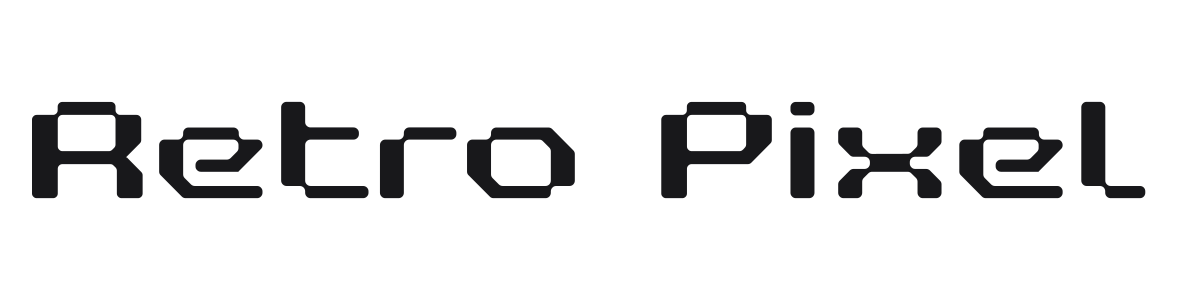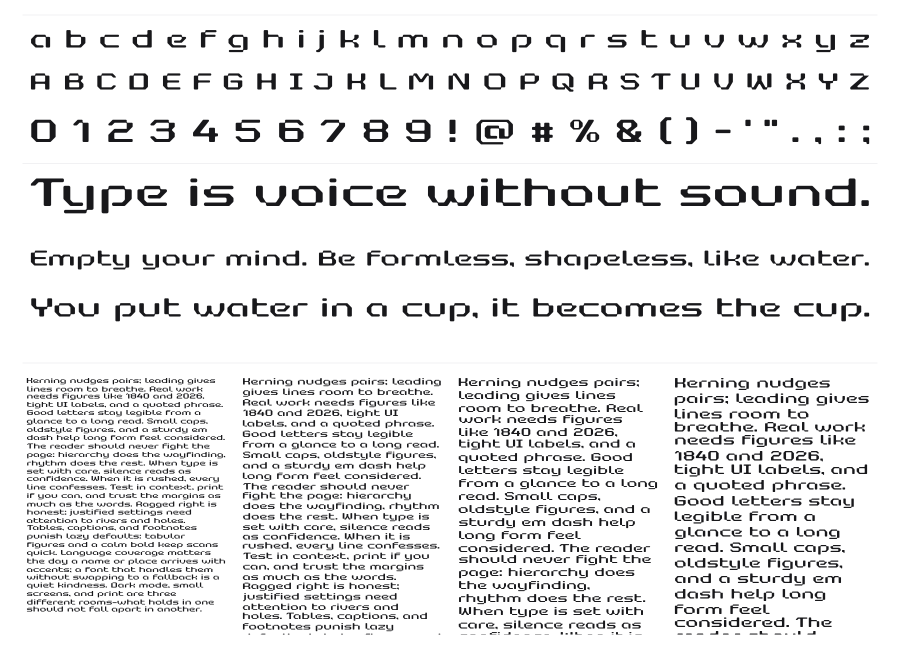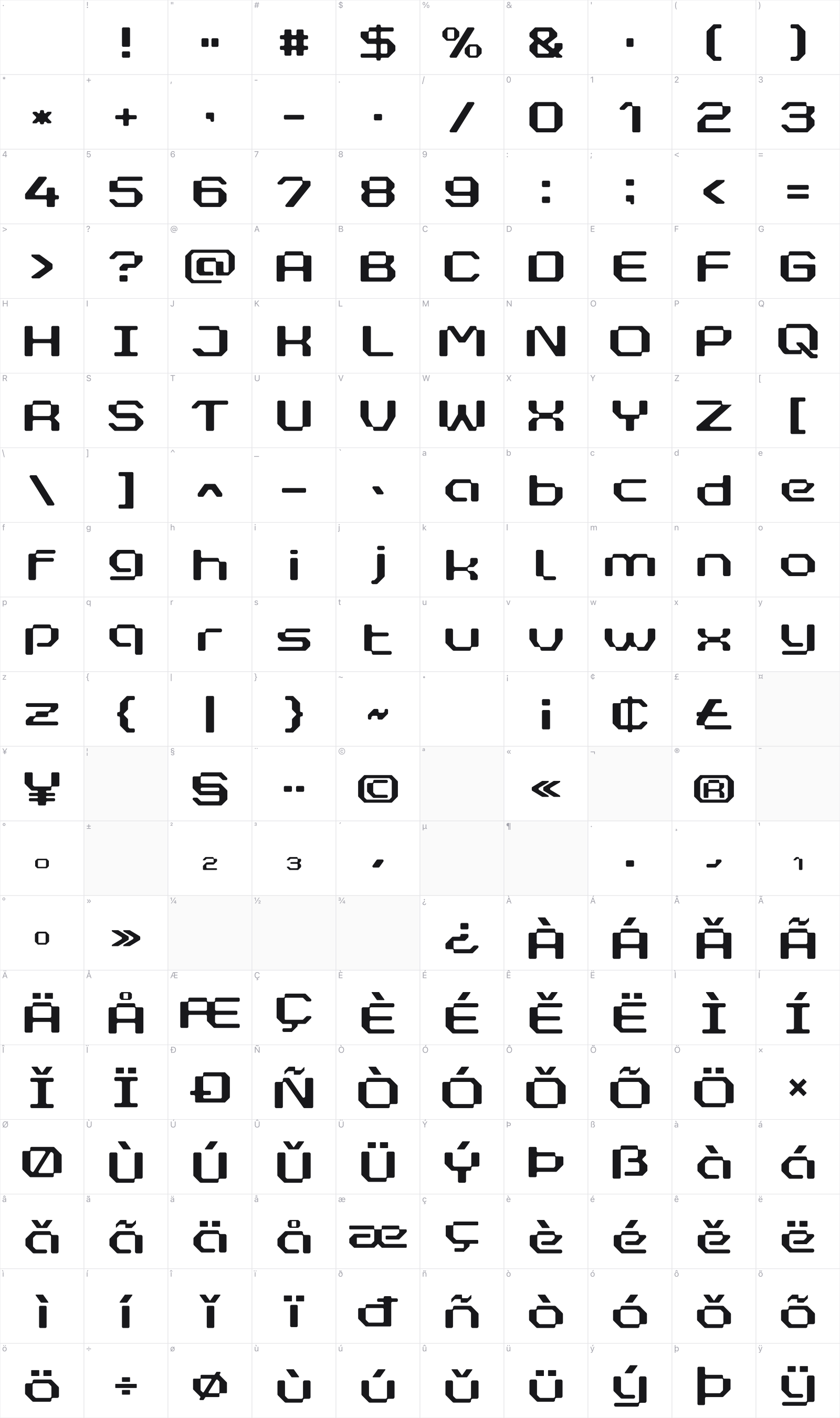
Retro Pixel
Retro Pixel is a bold square sans with softly rounded corners that channels the chunky character of early digital displays and arcade hardware. Its monoweight strokes and wide proportions keep it legible at large sizes while radiating a distinctly retro gaming energy. Strong for logos, titles, and any project that wants to tap into 80s digital nostalgia.